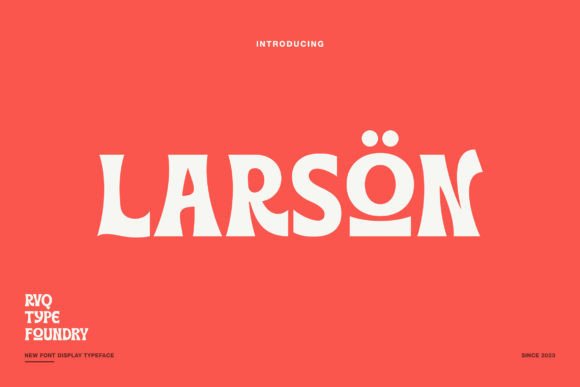
Prepare to be mesmerized by Larson Font, the epitome of uniqueness and creativity in the realm of display fonts. Conceived by the masterminds at Rvq Type Foundry, this font is an absolute gem, poised to elevate your designs to stratospheric heights.
Larson Font is not merely a collection of letters; it's an arsenal of artistic expression, meticulously crafted to ignite your imagination and transform your digital dreams into tangible masterpieces. Whether you're a seasoned design virtuoso or just starting your creative journey, Larson Font will effortlessly guide you towards typographic enlightenment.
Beyond its aesthetic allure, Larson Font possesses an undeniable functionality that makes it the perfect companion for web design. Its clean lines and balanced proportions ensure seamless integration with any digital canvas, while its inherent versatility allows it to adapt effortlessly to a myriad of design styles. From sleek and minimalist layouts to bold and captivating compositions, Larson Font will effortlessly elevate your creations.
But what truly sets Larson Font apart is its emotional resonance. Each letterform is imbued with a life of its own, evoking a symphony of emotions that will captivate your audience and leave them yearning for more. Whether you seek to inspire, intrigue, or simply delight, Larson Font will amplify your message and leave an indelible mark on the hearts and minds of your readers.
So, embark on this typographic odyssey with Larson Font and witness the transformation of your designs into captivating works of art. It's time to unleash your creativity and let your imagination soar. Embrace the power of Larson Font and prepare to redefine the boundaries of digital design.